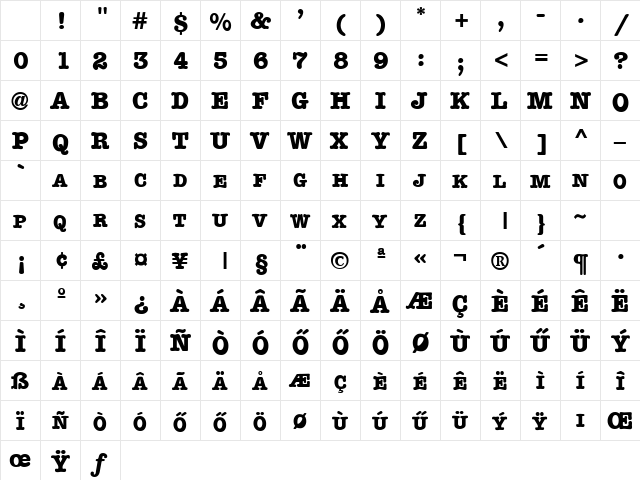
Complete Hu_TypewriterExpert Bold Regular glyph index. Displaying only characters natively supported by Hu_TypewriterExpert Bold Regular font.
Hu_TypewriterExpert Bold uses fixed-width spacing throughout, giving it the structured, systematic character associated with coding environments and technical documentation. Its bold stroke weight gives it real presence on the page.
Pro Tip: Use Hu_TypewriterExpert Bold with slightly increased line-height for extended reading - fixed-width spacing can feel dense in longer passages without extra breathing room.